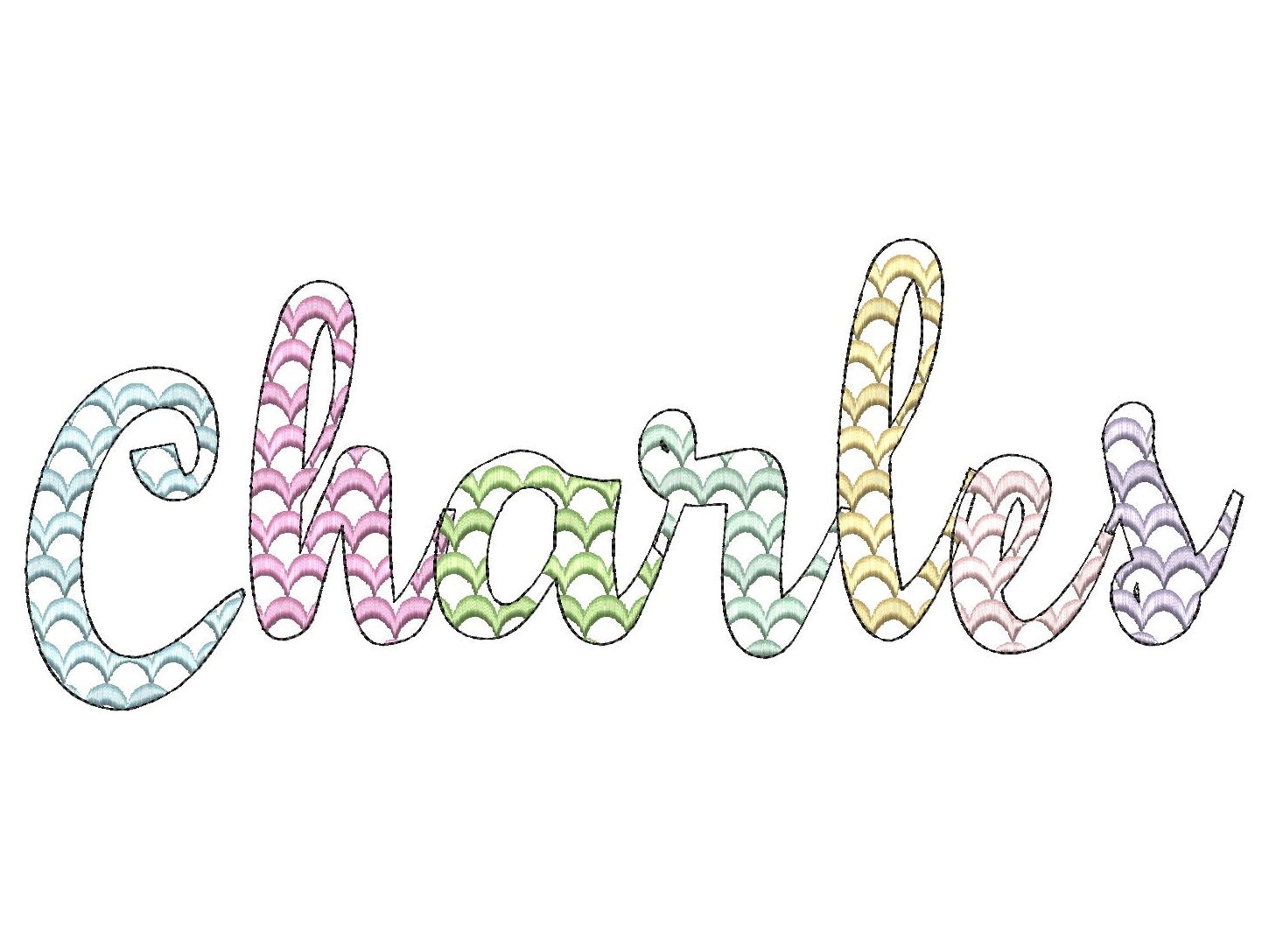
Scalloped FONT script alphabet letters and numbers machine embroidery designs in many sizes, satin stitch script scallop font monogram name
Uppercase, lowercase, numbers and punctuation.
This is a transparent font, the background fabric looks through! Awesome effect!
Cutest font that stitched out very well